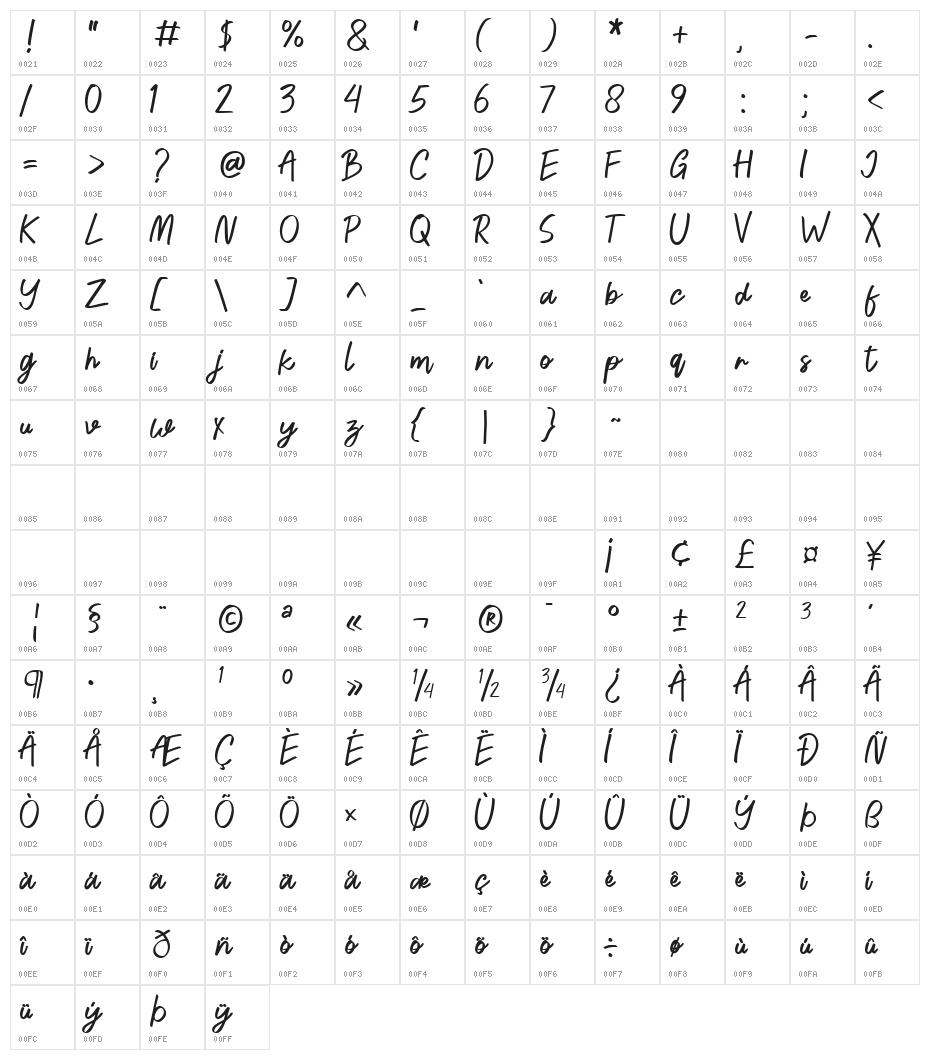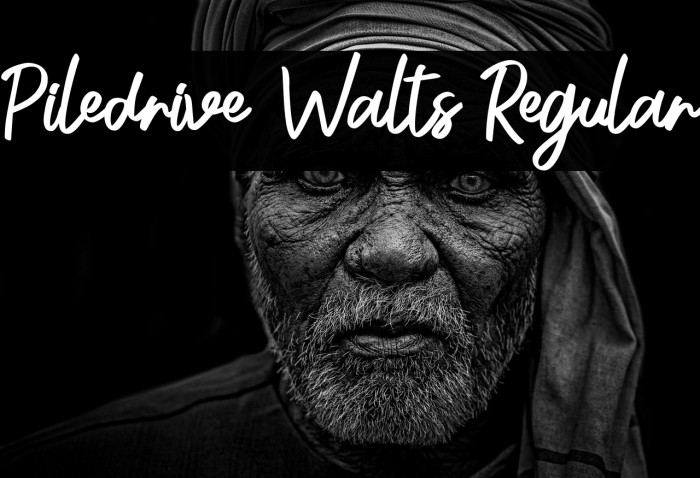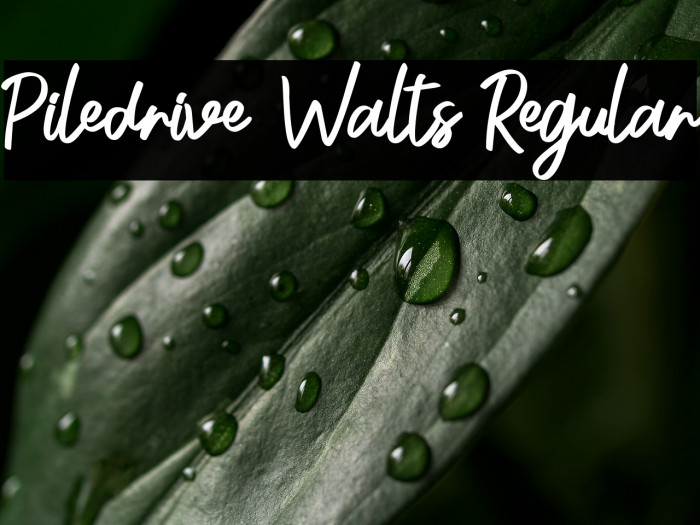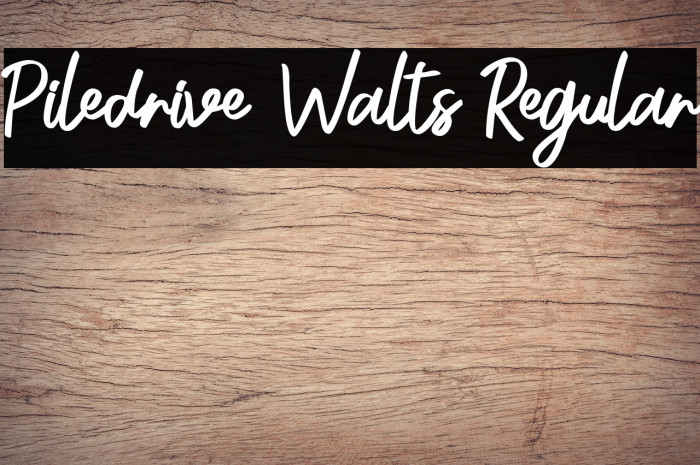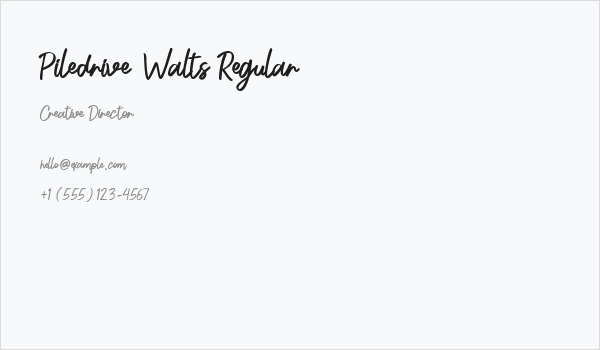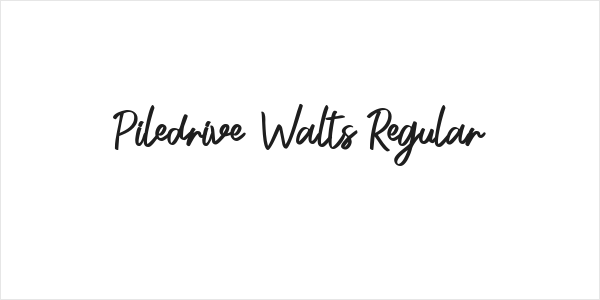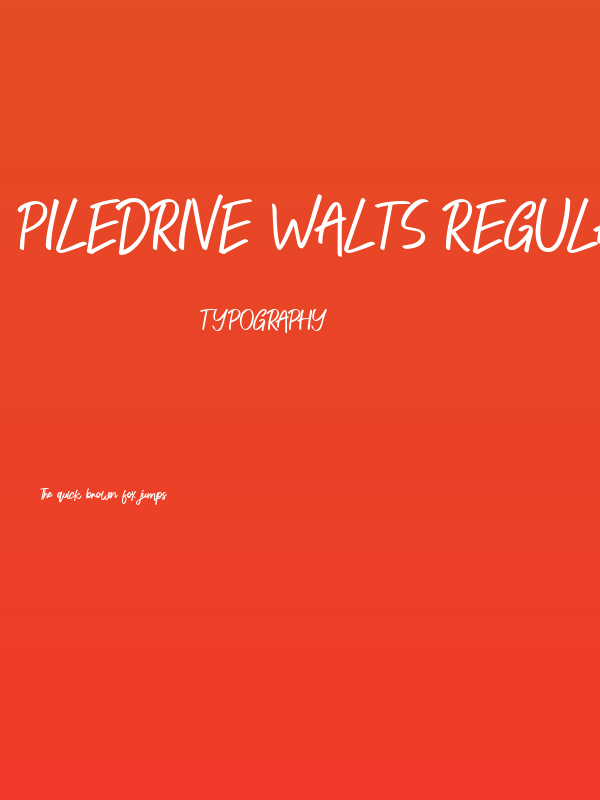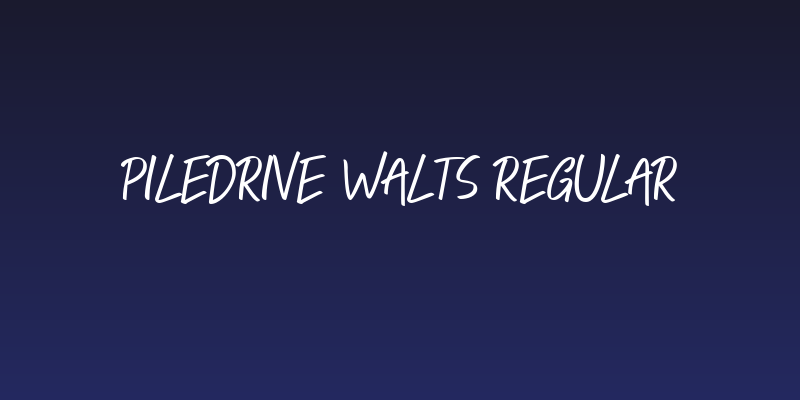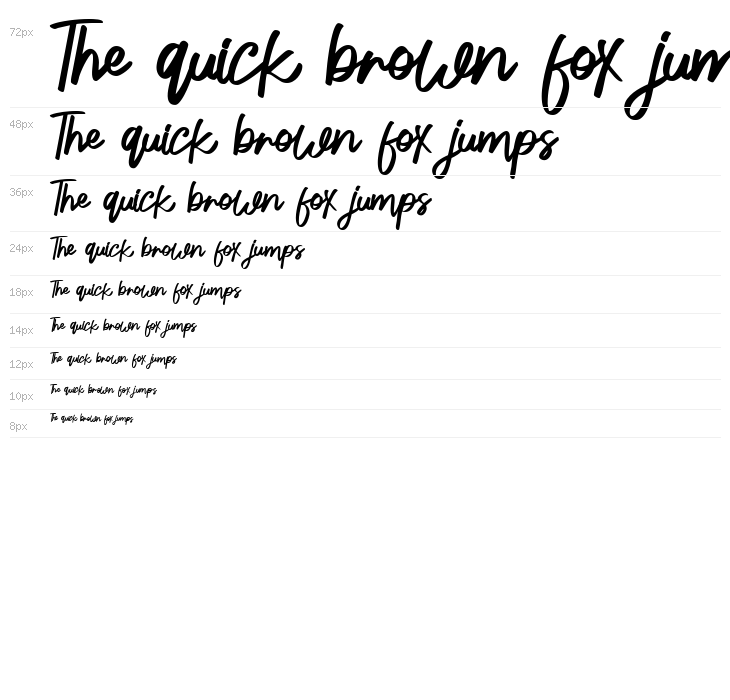
Piledrive Walts Regular Font
Piledrive Walts Regular Description
This font exhibits a lively and dynamic handwritten style, characterized by its fluid and continuous strokes. The uppercase letters are bold and slightly slanted, giving a sense of motion and energy. The lowercase letters maintain a consistent flow, with some characters featuring loops and curves that enhance its handwritten appeal. The numerals are clear and legible, matching the overall style of the alphabet. Special characters are seamlessly integrated, maintaining the playful and informal tone of the font. This font is ideal for projects that require a personal touch or a casual, friendly vibe.